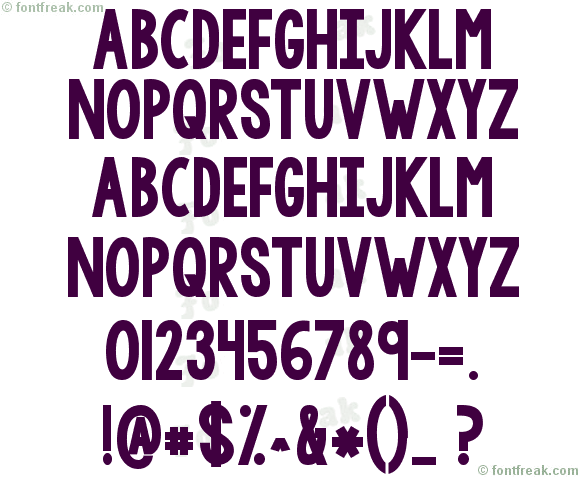
KG LET HER GO SOLID
About KG LET HER GO SOLID
KG LET HER GO SOLID is a striking display font designed by Kimberly Geswein, categorized as a sans-serif typeface. This font is characterized by its bold stroke weight and clean lines, which contribute to its modern and approachable aesthetic. The uniformity in stroke width ensures excellent readability, while the slightly rounded edges add a touch of friendliness, making it suitable for a variety of design applications. The font's spacing is well-balanced, allowing for comfortable reading even at larger sizes, which enhances its visual impact.
This versatile typeface is perfect for a range of use cases. It shines in wedding invitations, where its contemporary style can evoke a sense of love and celebration. Additionally, it is an excellent choice for movie posters, allowing titles and taglines to stand out with confidence. Restaurant menus can also benefit from the font’s clarity and boldness, making it easy for patrons to read offerings at a glance. Small business owners will find KG LET HER GO SOLID ideal for branding materials, as it captures attention while maintaining a professional appearance. Content creators looking to enhance their projects, such as social media graphics or promotional materials, will appreciate its modern charm.